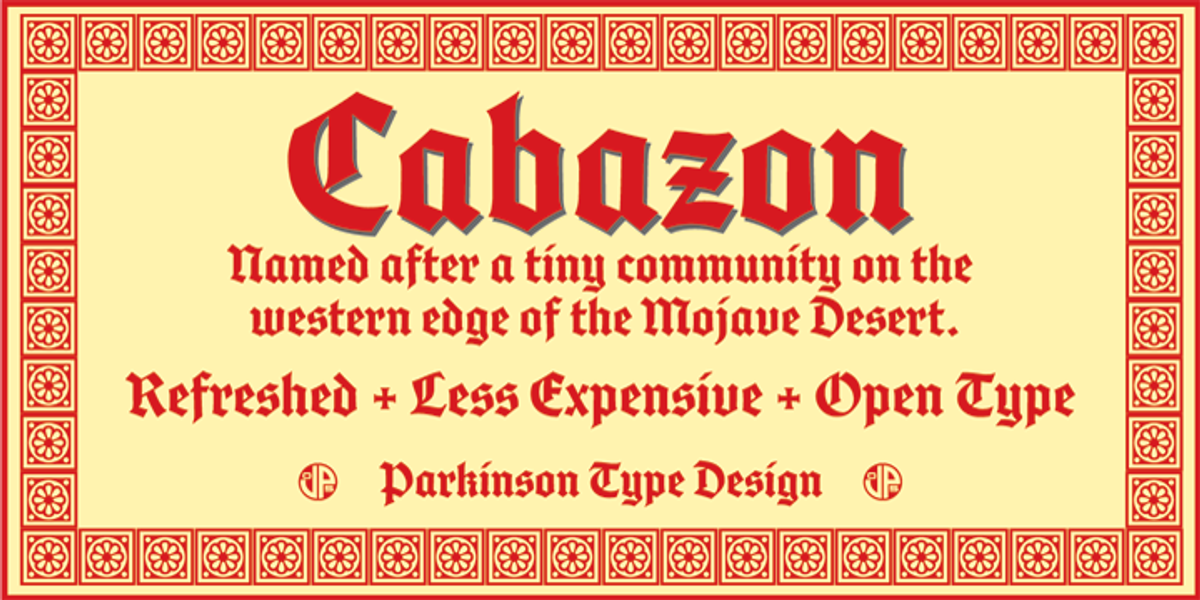
Cabazon
Cabazon is an informal blackletter typeface inspired by a variety of historical hand lettering samples. It draws influence from the works of renowned calligraphers like Rudolf Koch and Friedrich Heinrichsen, as well as showcard lettering artists Ross Gerorge and Samuel Welo. Medieval manuscript samples also played a role in shaping its distinctive style.